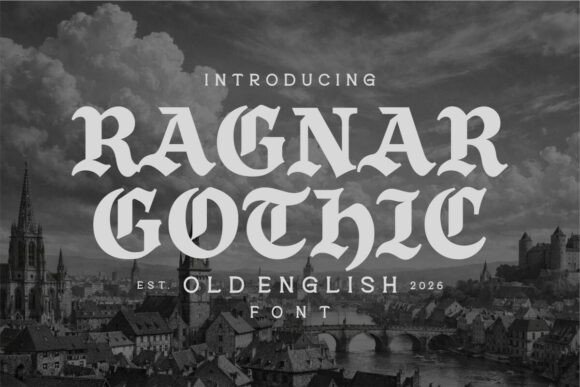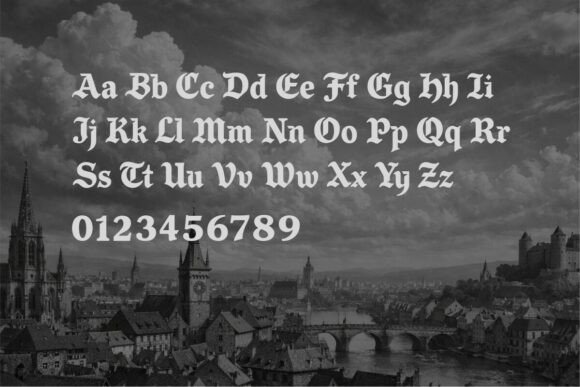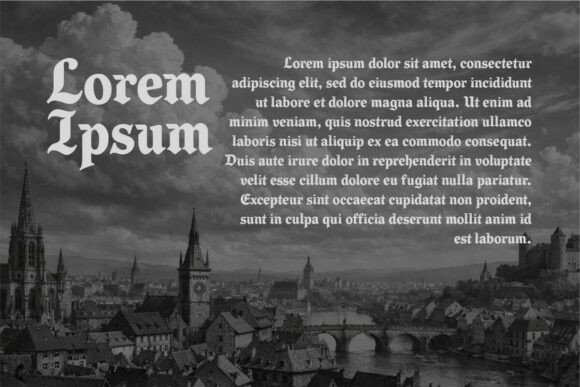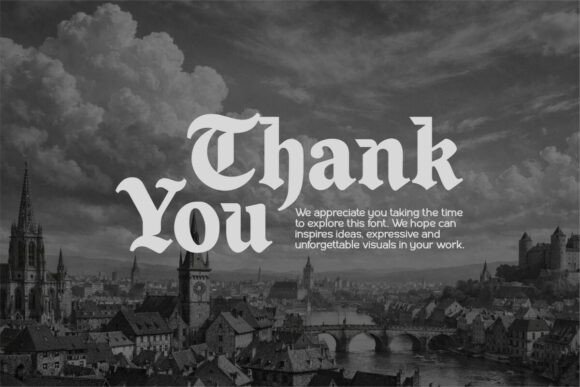
Introduction to Ragnar Gothic Font
Elevate your designs with Ragnar Gothic, a powerful and expressive Old English font that bridges the gap between medieval tradition and contemporary bold aesthetics.
Established in 2026, this typeface is meticulously crafted for creators who need a โ€œGothicโ€ look that remains clean, readable, and undeniably impactful Ragnar Gothic is the ideal choice for branding and identity projects that require a touch of history and strength.